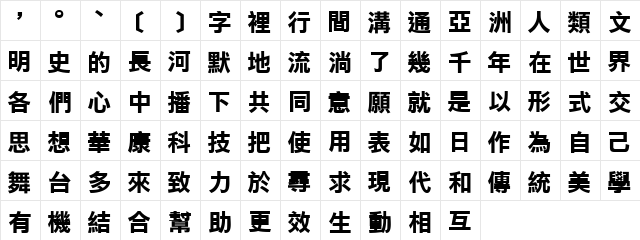
DFLiHeiBold1B Regular
Design Context for DFLiHeiBold1B Typeface
DFLiHeiBold1B offers clean, dependable letterforms without strong stylistic allegiance, making it a practical choice for designers who need flexibility. The heavy weight commands attention and anchors typographic hierarchies.